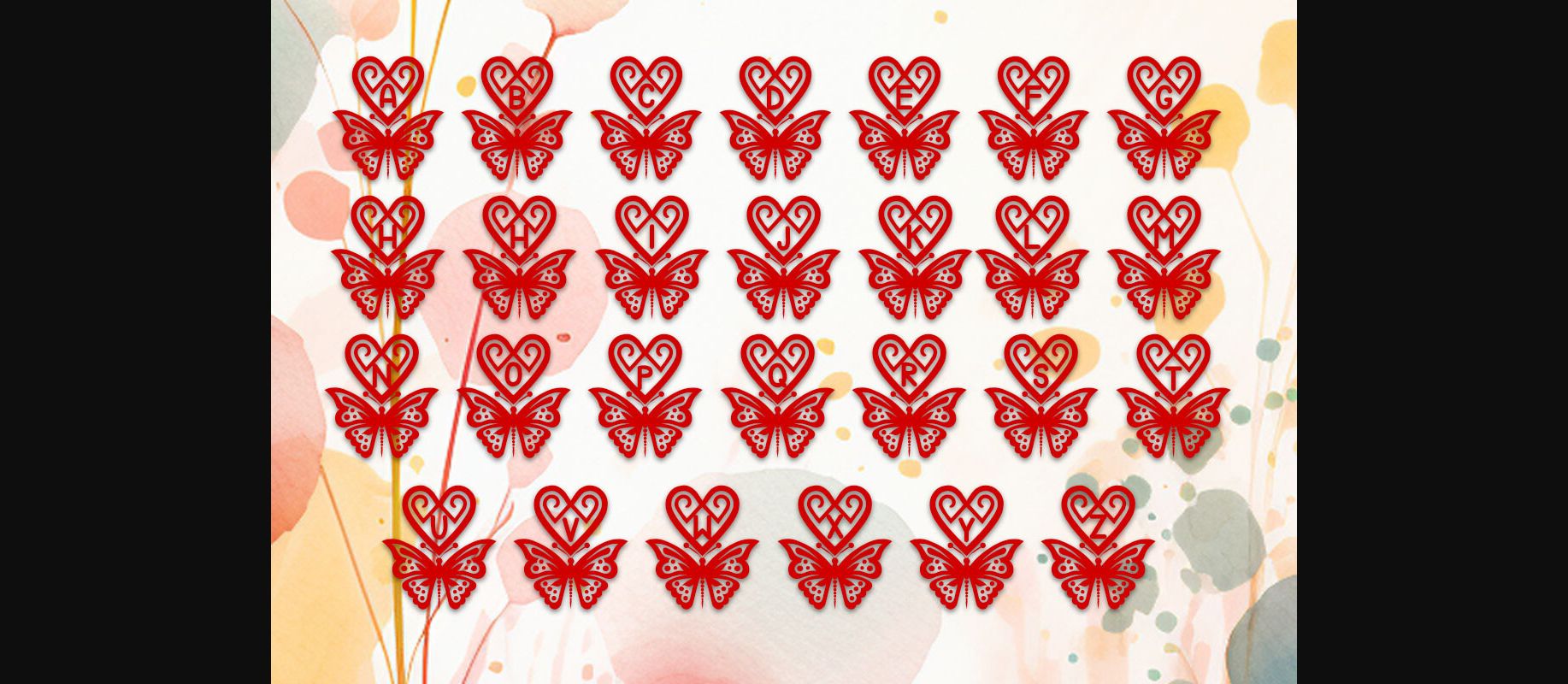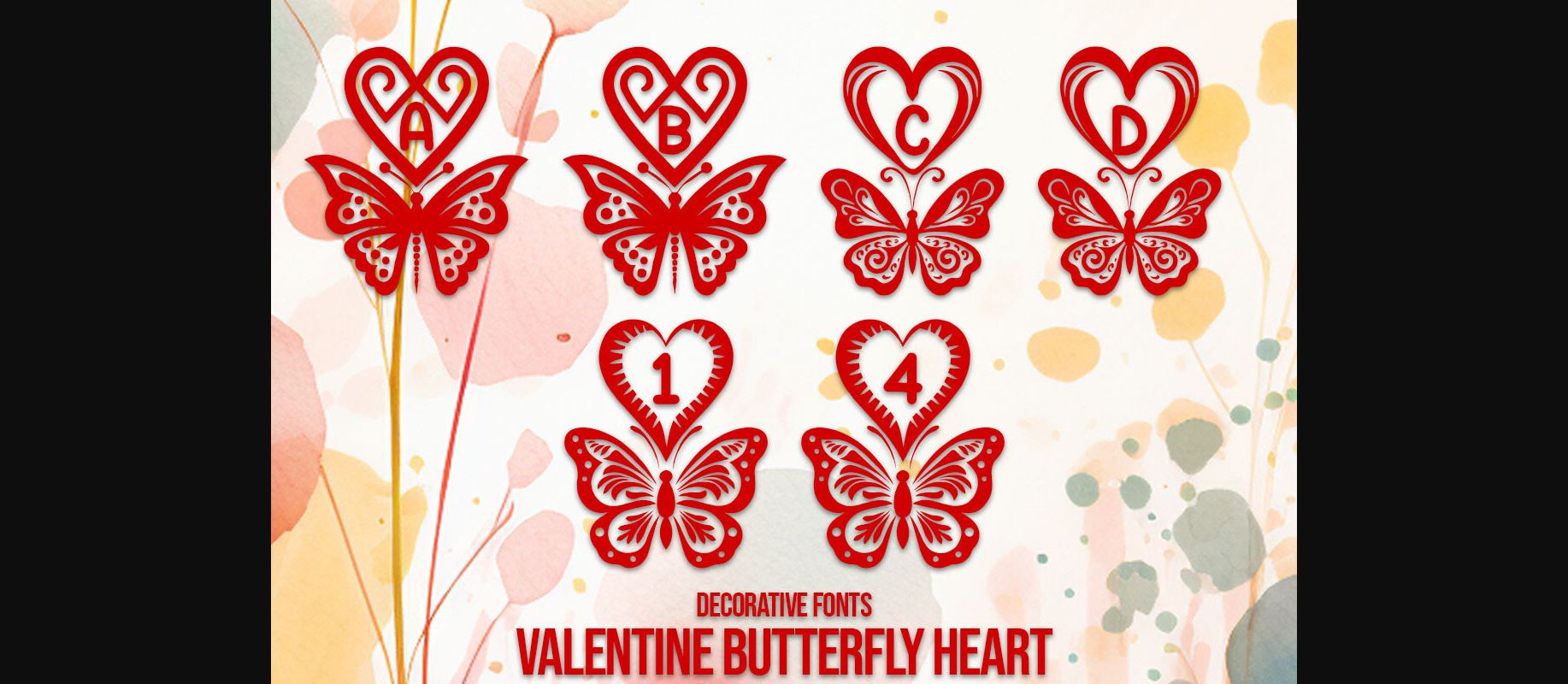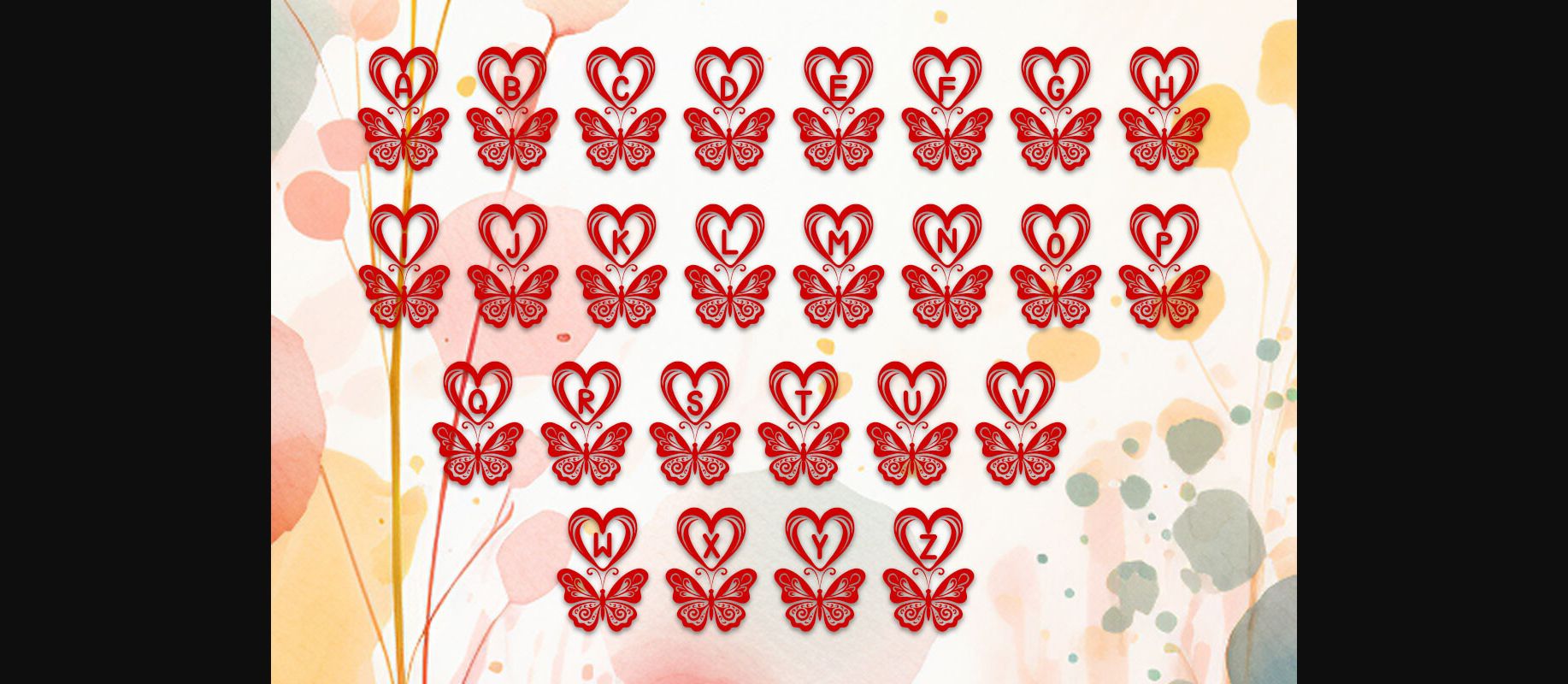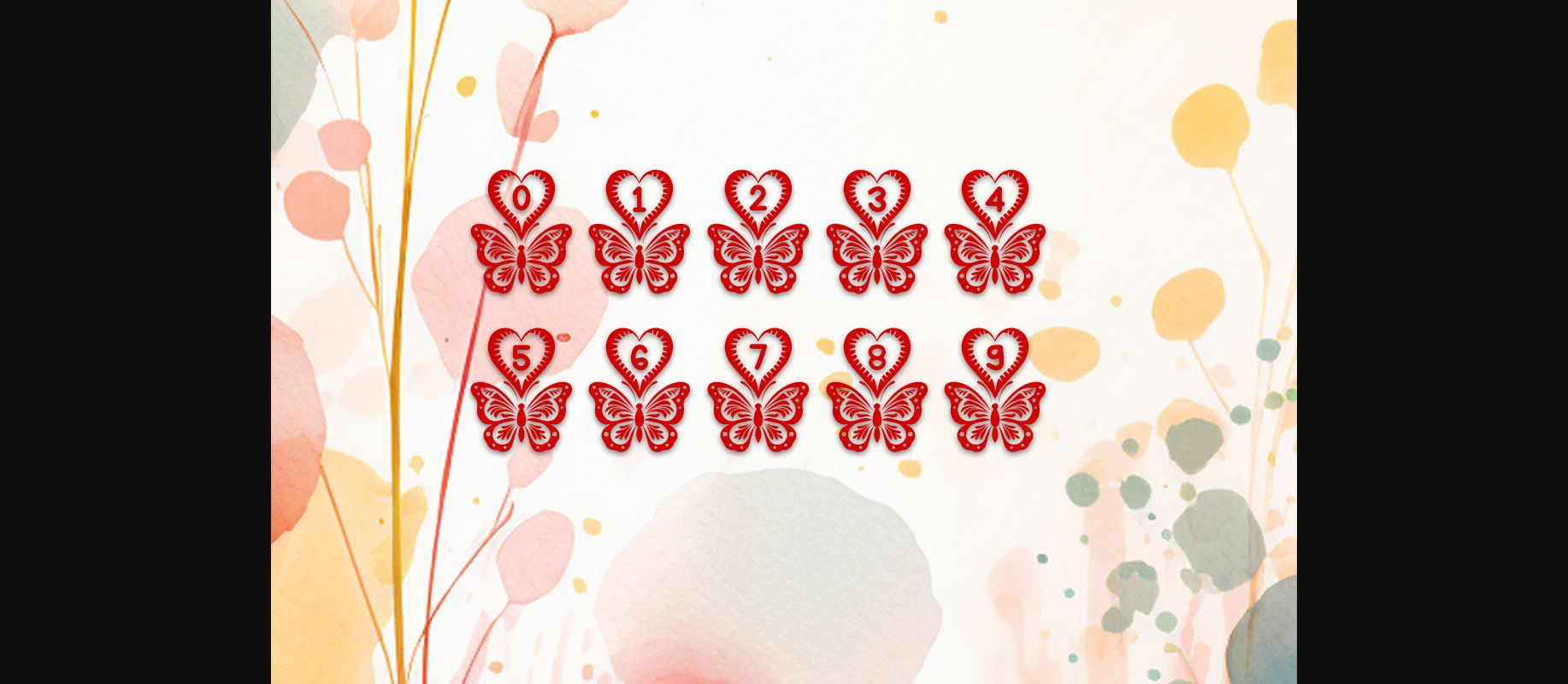
Valentine Butterfly Heart Font
About Valentine Butterfly Heart Font
Introducing our ‘Valentine Butterfly Heart Decorative Fonts’ – a captivating fusion of love, grace, and artistic expression. With a total of 62 meticulously crafted characters, including 26 uppercase letters, 26 lowercase letters, and a complete set of numbers 0-9, each stroke captures the delicate beauty of butterflies and the enduring symbol of the heart. Infuse your designs with romantic charm, perfect for invitations, digital art, or heartfelt messages. Let these fonts be your creative companions, inspiring moments of love and elegance in every design